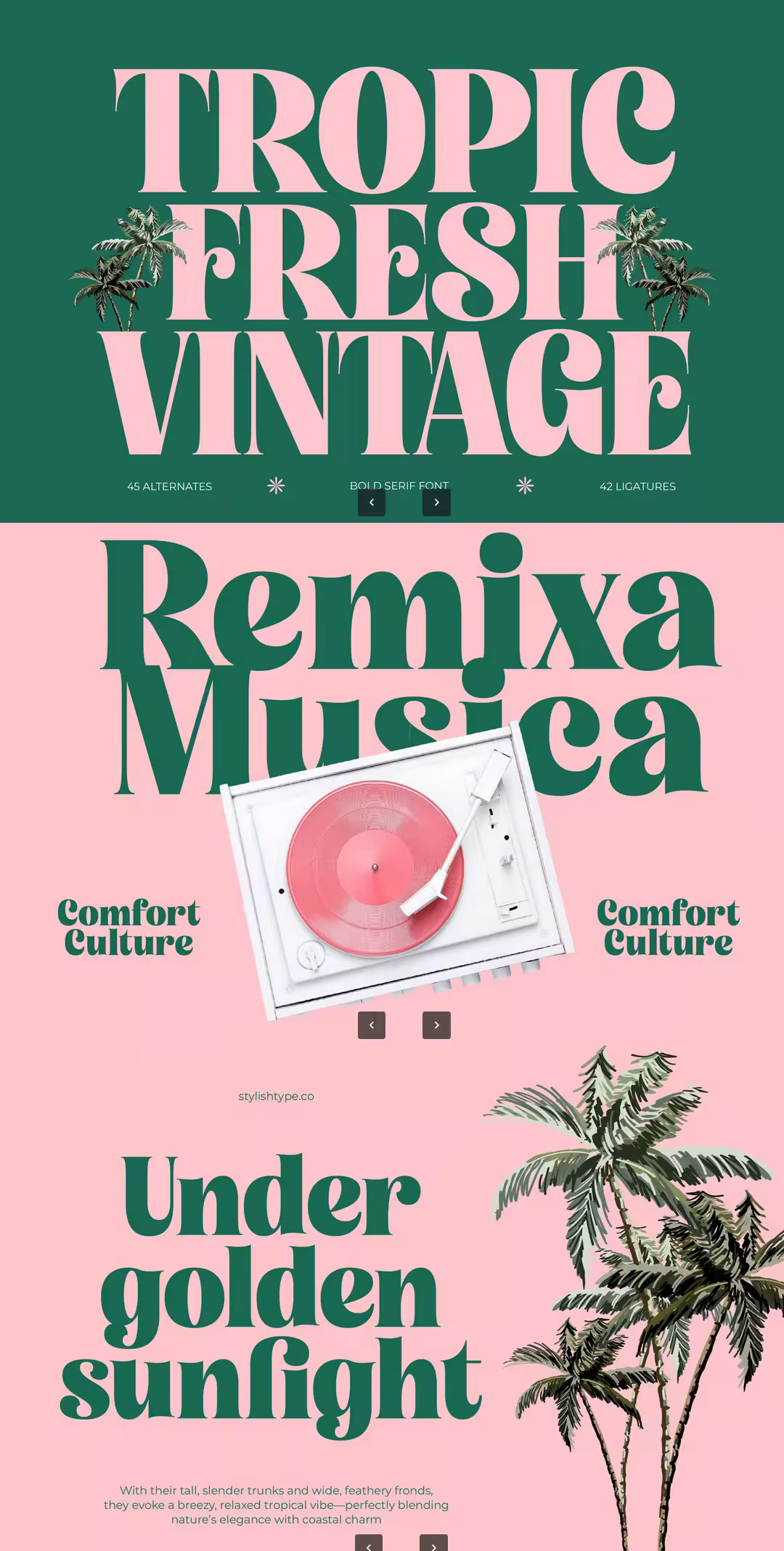
Tropic Fresh Vintage is a bold serif display font blending tropical charm with retro elegance. With its thick curves, smooth transitions, and warm vintage personality, this typeface is perfect for summer branding, beach-themed packaging, editorial layouts, posters, café signage, social media graphics, and expressive logo design. The font captures a refreshing tropical mood while maintaining a stylish classic serif structure.
Featuring 45 alternates and 42 ligatures, Tropic Fresh Vintage offers extensive creative freedom to craft unique titles, decorative compositions, stylized monograms, and polished retro wordmarks. Its bold shapes, balanced proportions, and nostalgic flair make it the ideal choice for designers seeking a summery, expressive, and beautifully vintage serif display font.
Ligature
Uppercase and lowercase
Numbering and Punctuation